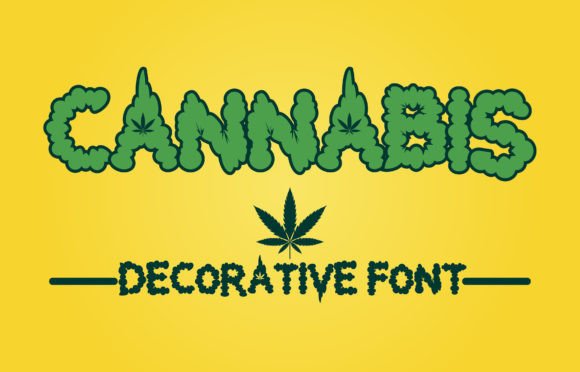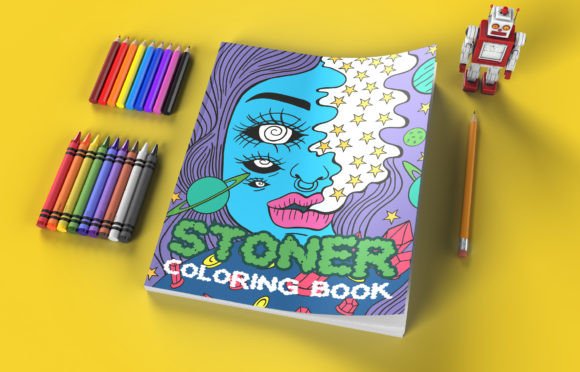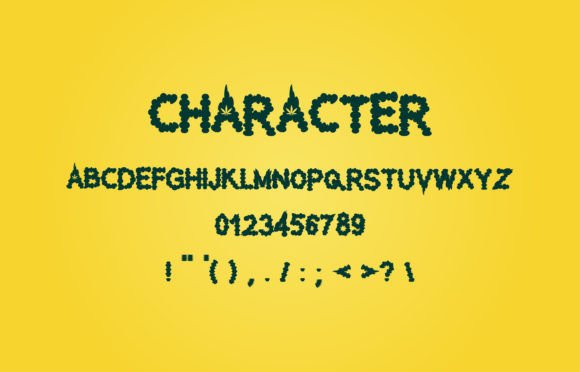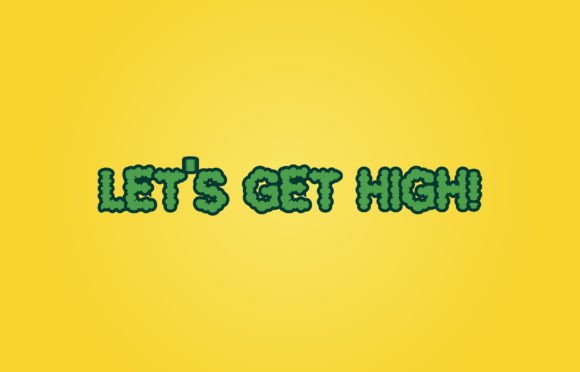
Cannabis Font
About the Cannabis Font
Make a bold statement with Cannabis Font, a powerful and memorable font. Cannabis is a decorative font featuring cannabis leaves. This cool font is perfect for trippy-themed designs, weed coloring book covers, or anything that needs a fun accent.
Cannabis excels as a display font for headlines, short titles, and logos in projects related to cannabis culture, or where a playful, slightly rebellious aesthetic is desired. It’s ideal for packaging, posters, and social media graphics, adding a distinctive visual element. However, its decorative nature makes it unsuitable for body text or UI elements requiring high readability.
The font’s personality is bold and playful, with a touch of irreverence. Therefore, pairing it with a clean sans-serif like Montserrat or a more geometric font like Futura would create a balanced contrast, grounding the Cannabis font’s decorative elements. For a slightly softer look, consider pairing it with a neutral serif like Lora.
Avoid using Cannabis in applications demanding high legibility, such as long-form content or website body copy. Its unique character shines brightest when used sparingly as a striking visual accent.